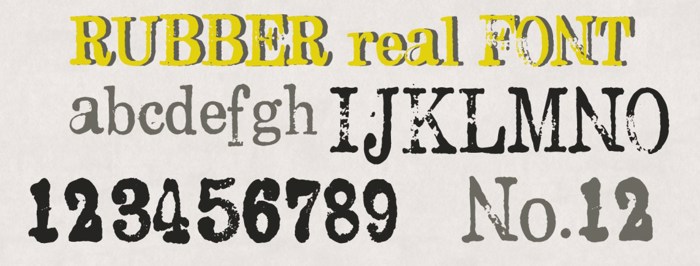
Rubber Stamp Font
Real font made from old rubber Stamps. Converted to TTF font. This font is for commercial use licensed. Contains capitals and lower cases, some signs also included and numbers. Grungy and dirty alpha for art journaling, scrapbooking, games, ebooks. This is only the demo version of the font. For Personal Use only. If you are looking for the entire font with more signs, better letters and CU licence visit my website: